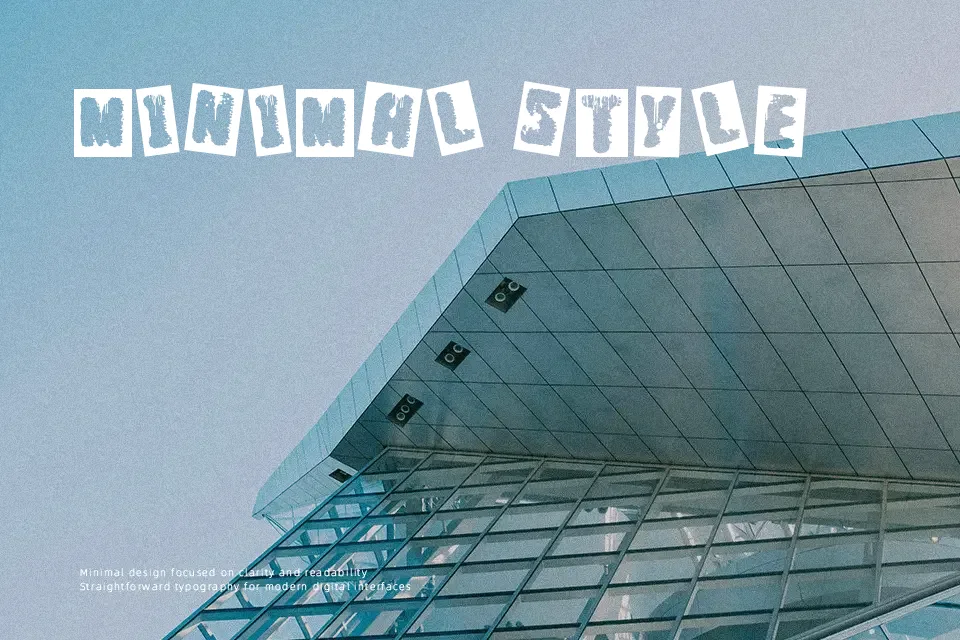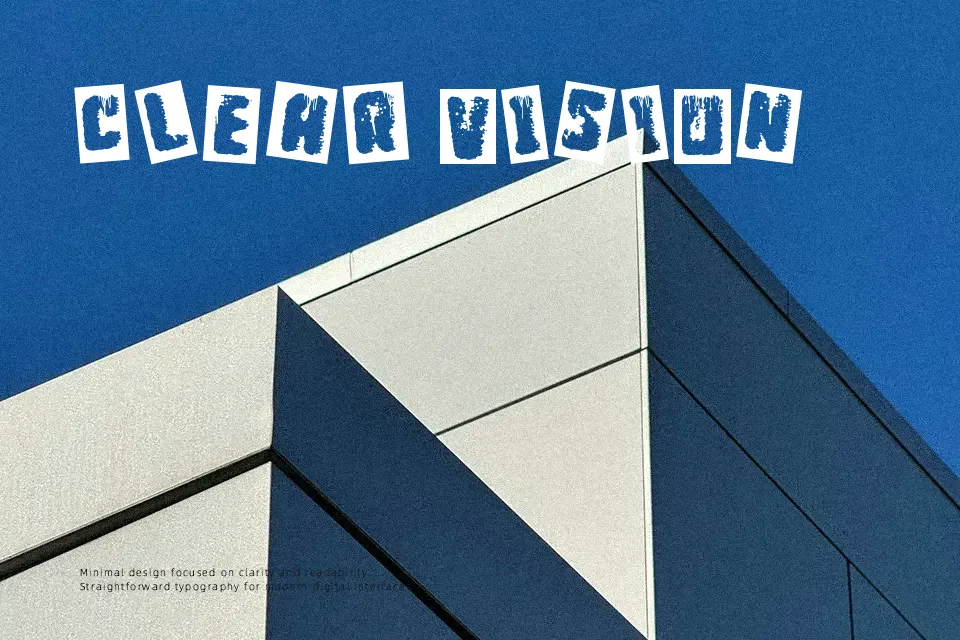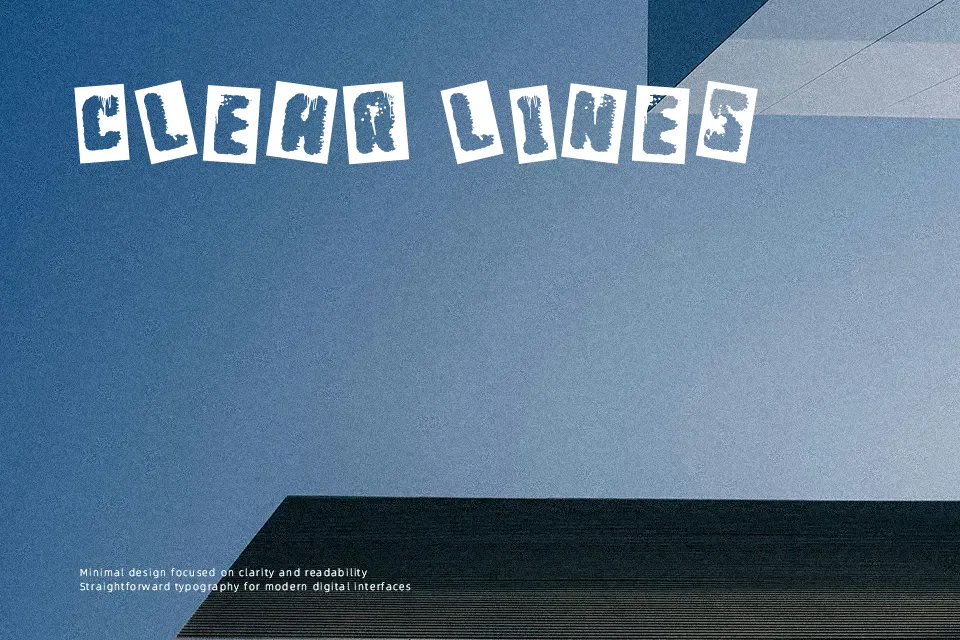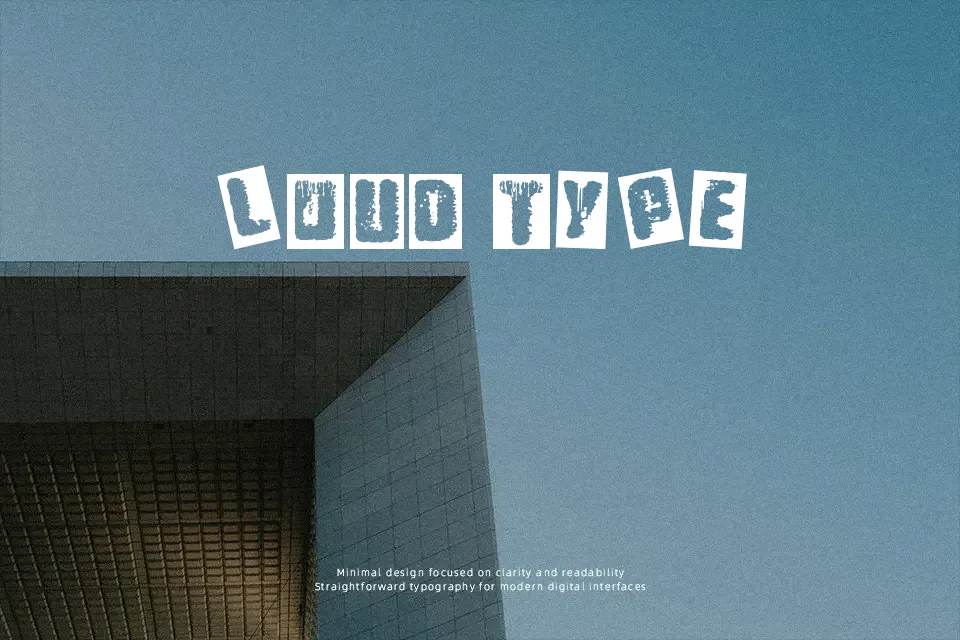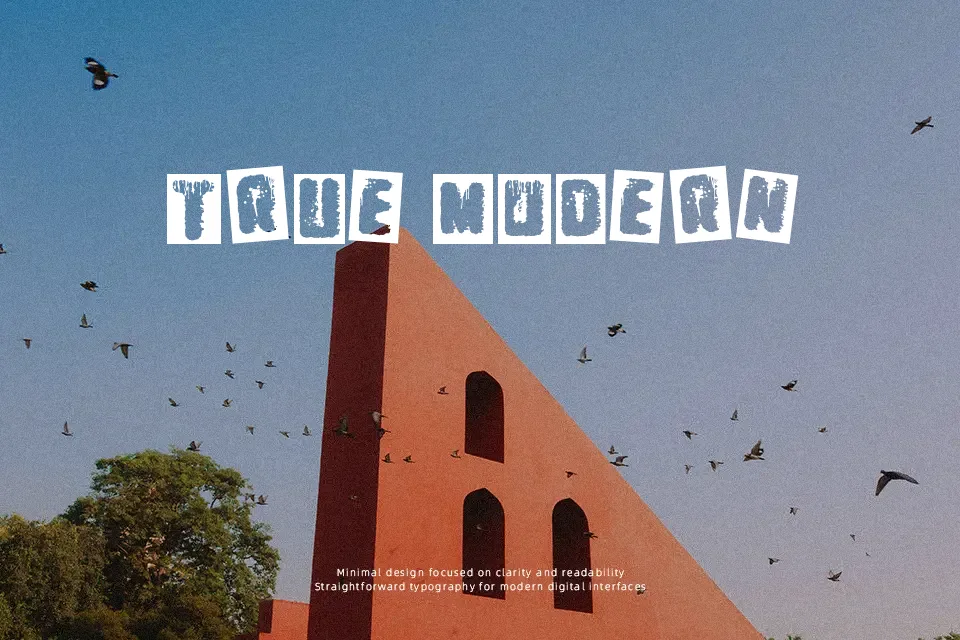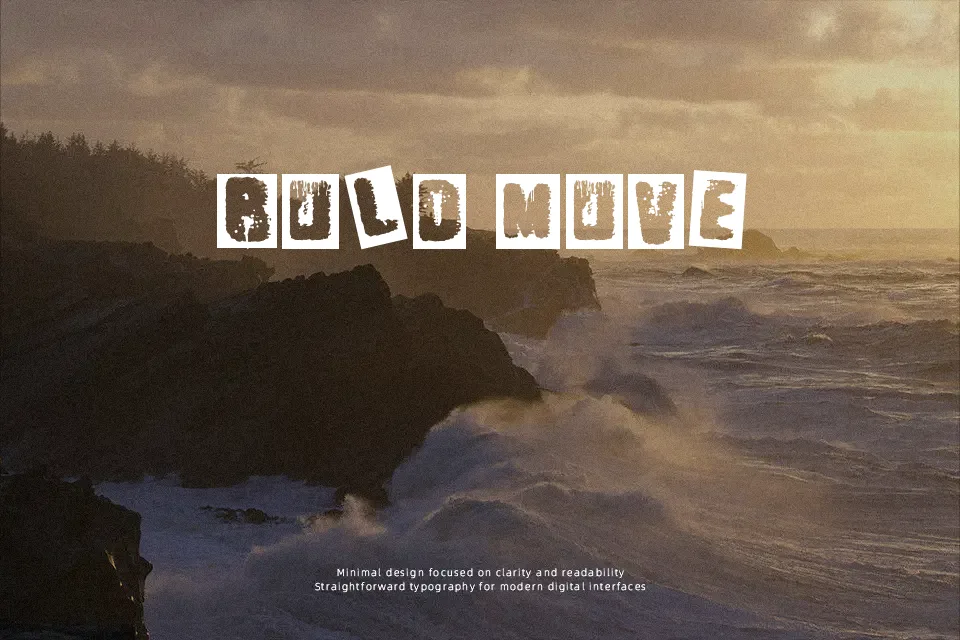
Punk Survival Font
The Punk Survival Font features heavily distressed strokes and irregular textures that establish a raw, rebellious aesthetic. The letterforms display aggressive fragmentation and uneven edges, mimicking weathered street art or hastily painted signs. Heavy weight ensures strong visual presence, while the chaotic internal spacing gives the typeface an unpredictable, energetic rhythm. This aggressive distressing helps maintain character in high-impact headlines, though the dense decorative details become less effective at smaller display sizes. The rough, broken forms reduce continuous reading comfort, severely limiting its application in extended text. It serves perfectly for underground music flyers, alternative event branding, and edgy streetwear graphics where attitude matters more than pristine legibility.
underground music flyers, streetwear apparel graphics, grunge album covers, rebellious event posters
long paragraph text, small interface labels, corporate reports, dense editorial layouts
Perfect for fashion, headline, and music, with a dark and decorative style.